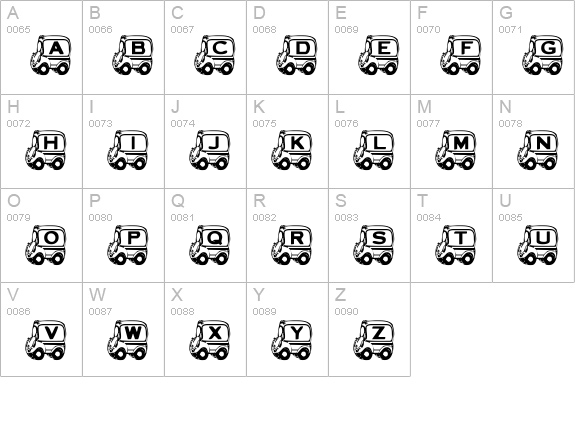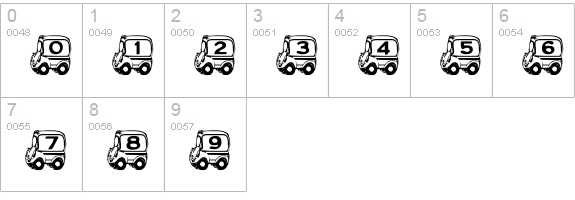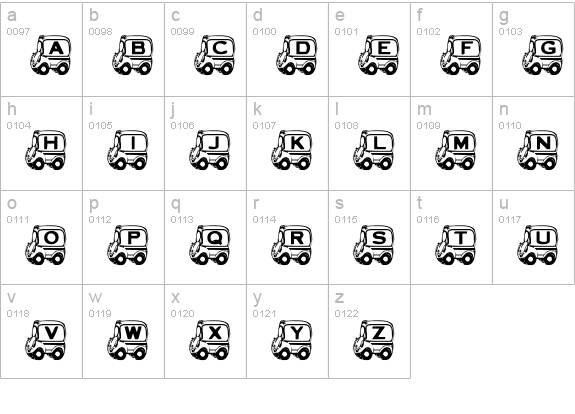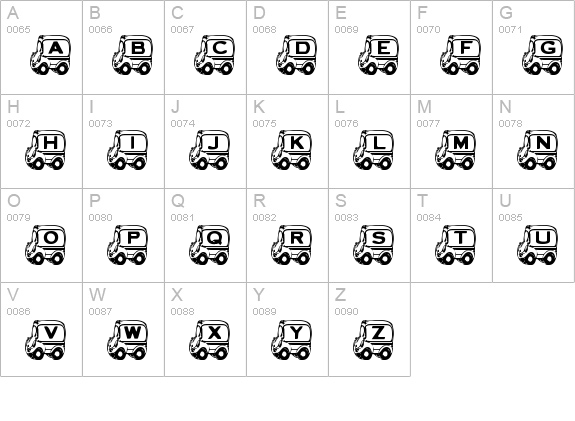
SPs School Bus Font Details
Introducing SPs School Bus font, a playful and charming typeface that captures the essence of childhood nostalgia and the excitement of hopping aboard a school bus. This delightful font is perfect for adding a touch of whimsy to any design project, from educational materials to children's books, invitations, and more. With its bold and rounded letterforms, SPs School Bus font exudes a sense of fun and adventure, making it an ideal choice for capturing the attention of young readers and creating a visually engaging experience. Each letter is carefully crafted to evoke the image of a classic yellow school bus, with curved edges reminiscent of its iconic shape. Not only does SPs School Bus font bring a sense of joy and playfulness to your designs, but it also offers the added benefit of being freely available to download at FontsMarket.com. This means that you can easily access this font without any cost, making it an excellent choice for those on a budget or looking for high-quality typefaces without breaking the bank. Whether you're a teacher designing classroom materials, a parent creating personalized invitations for a school-themed party, or a designer seeking to infuse a touch of nostalgia into your latest project, SPs School Bus font is the perfect choice. With its free availability and captivating design, this font is sure to transport your audience to a world of imagination and creativity. So hop on board and download SPs School Bus font today to bring a dash of childhood delight to your designs!